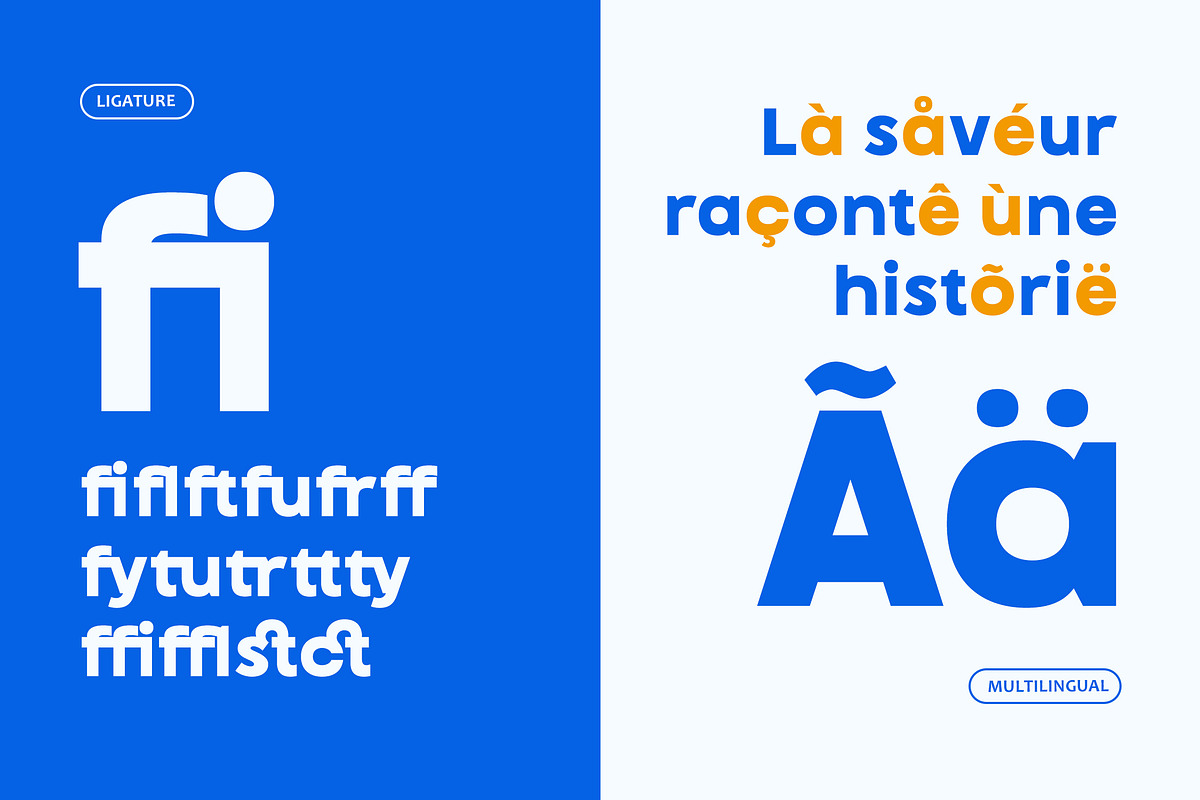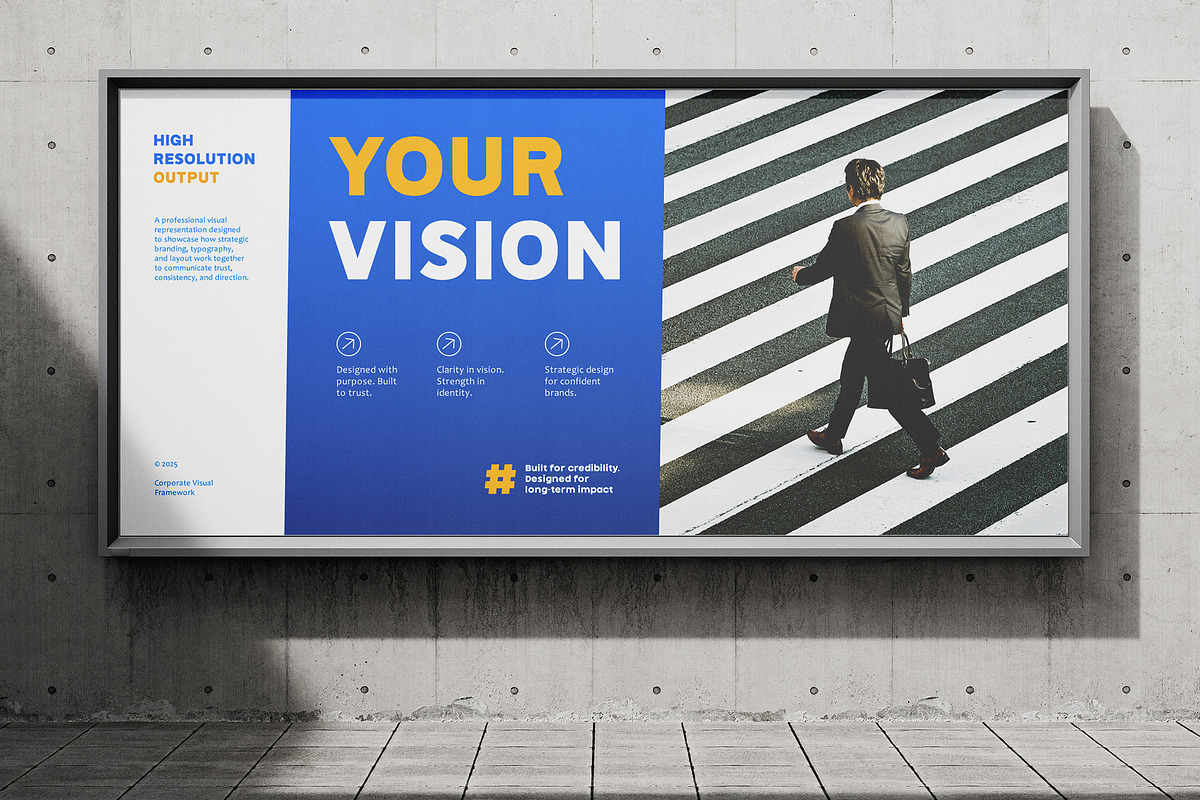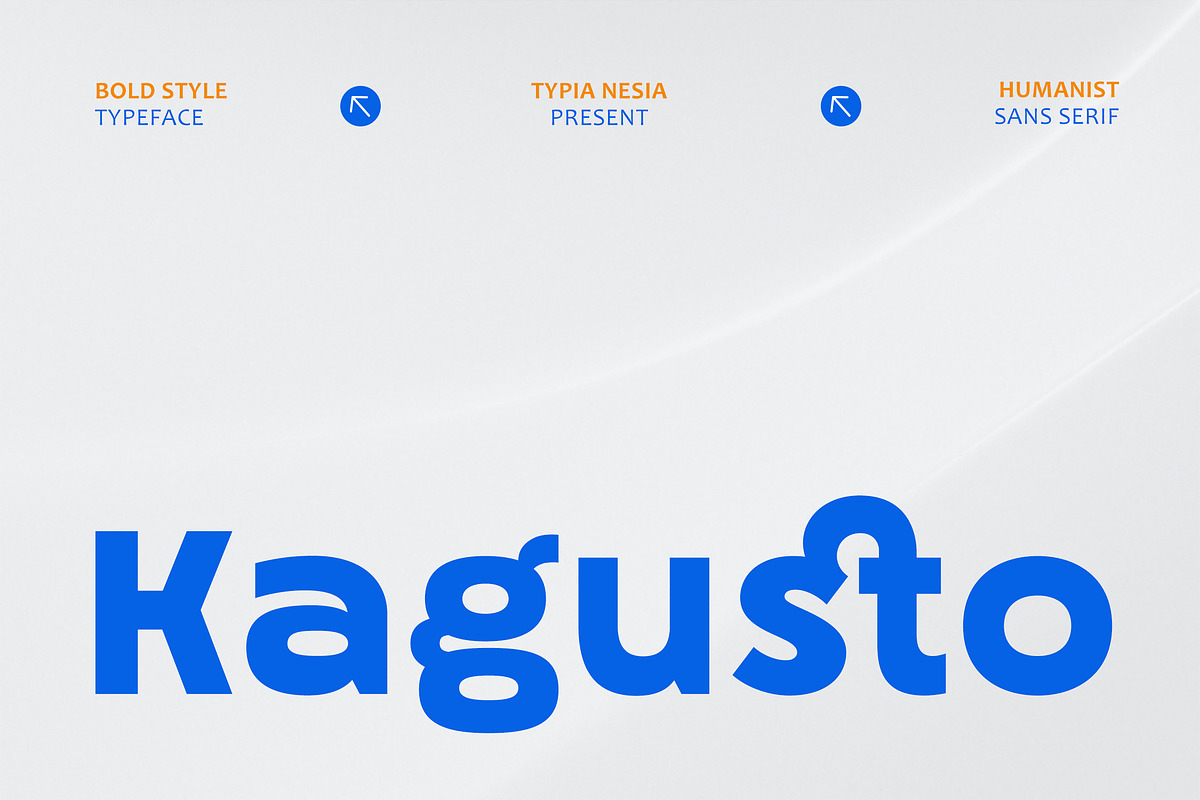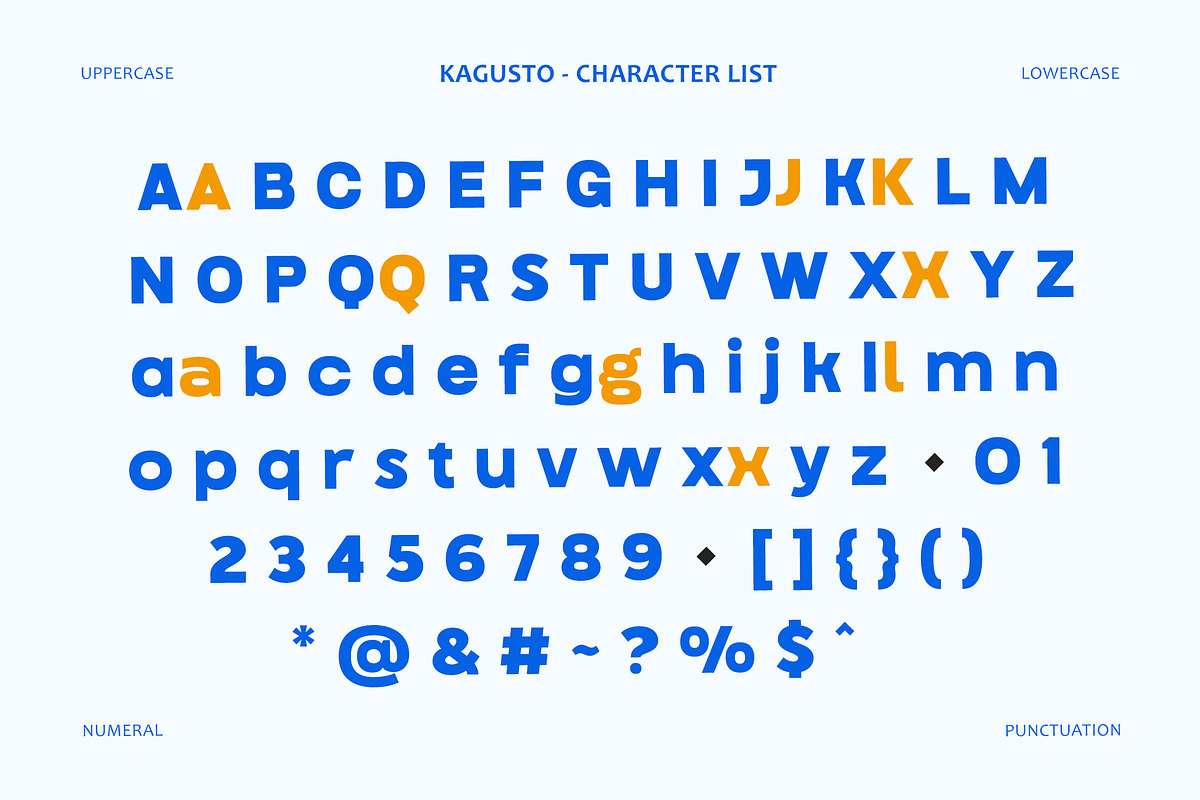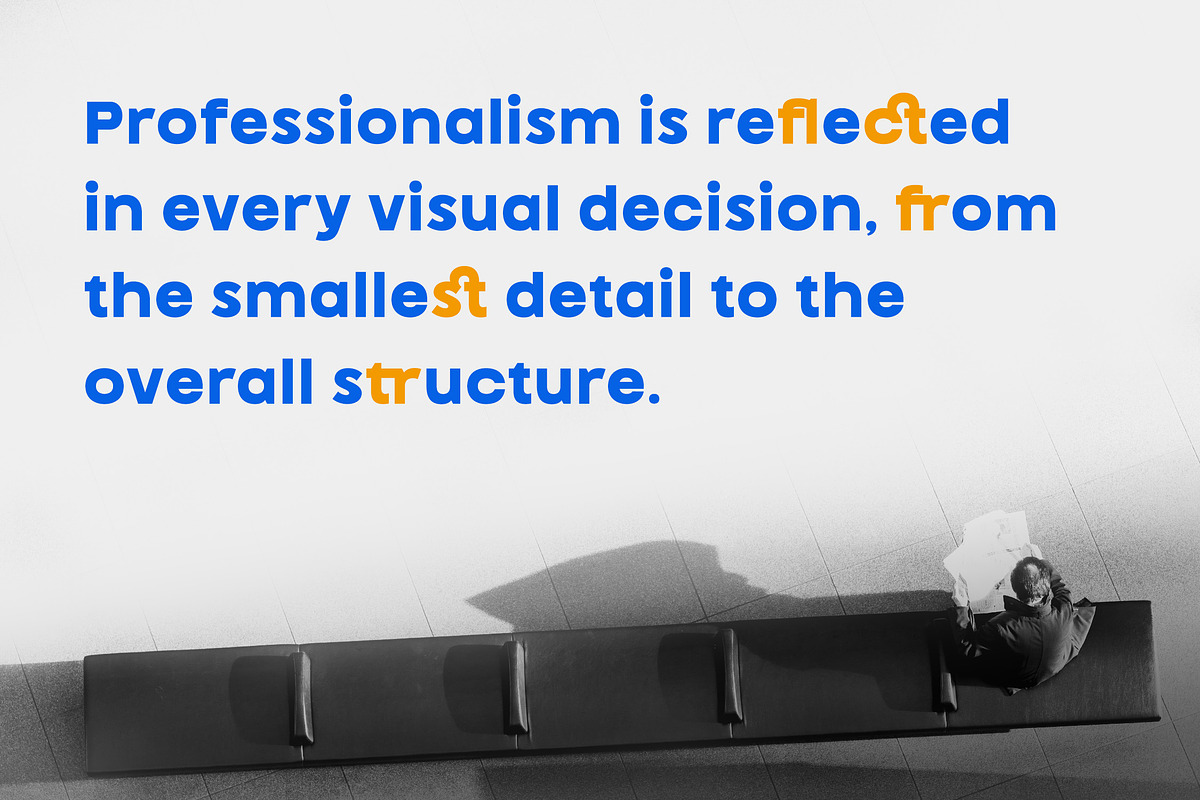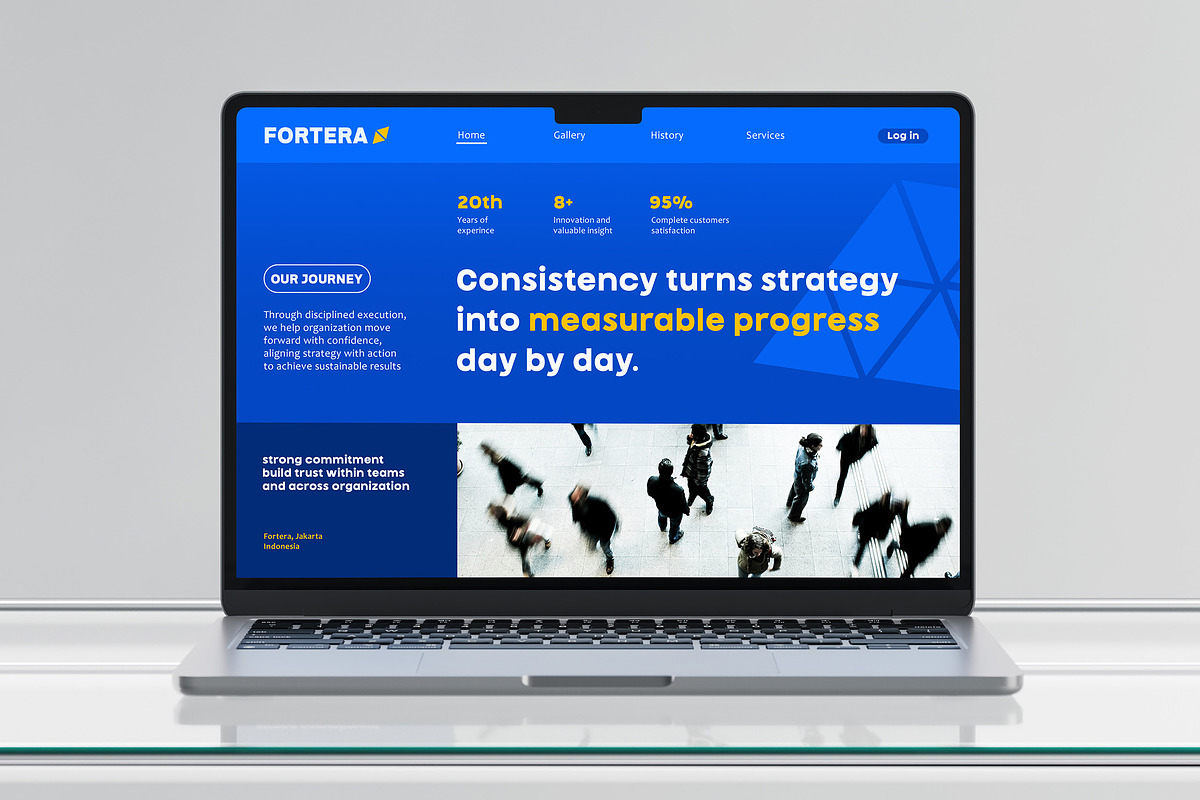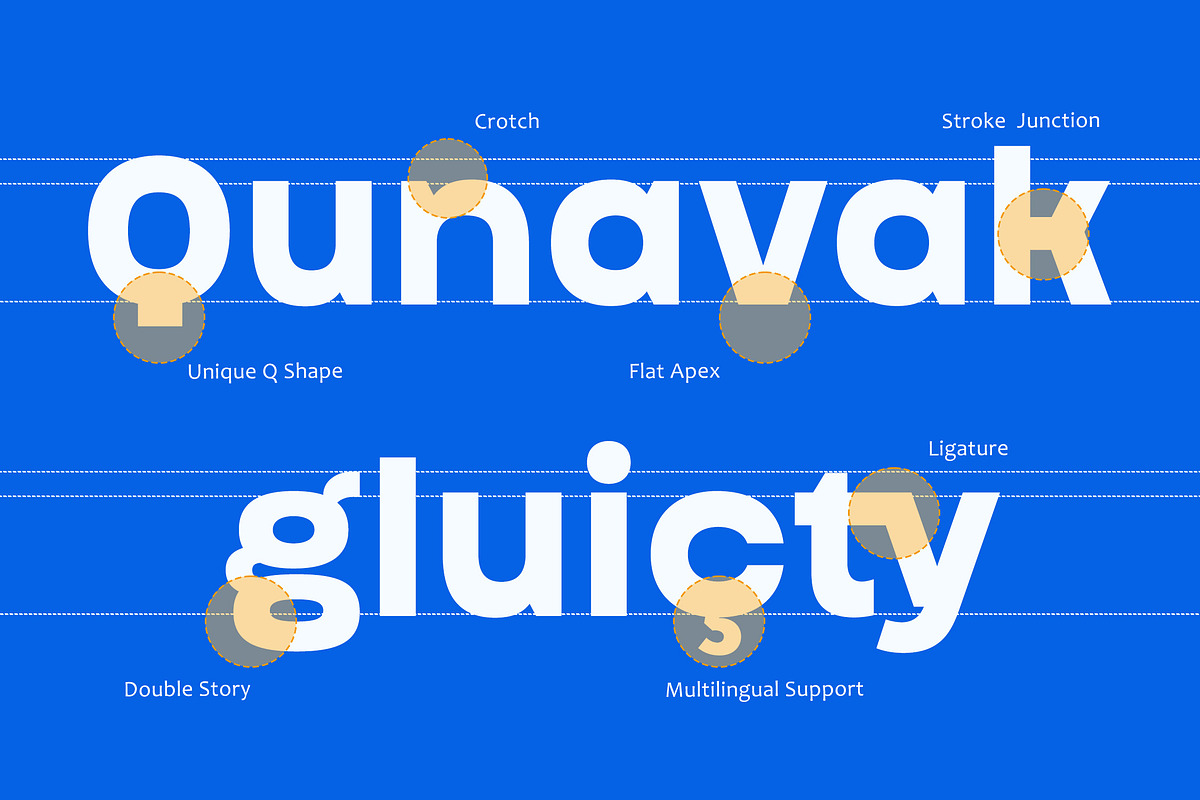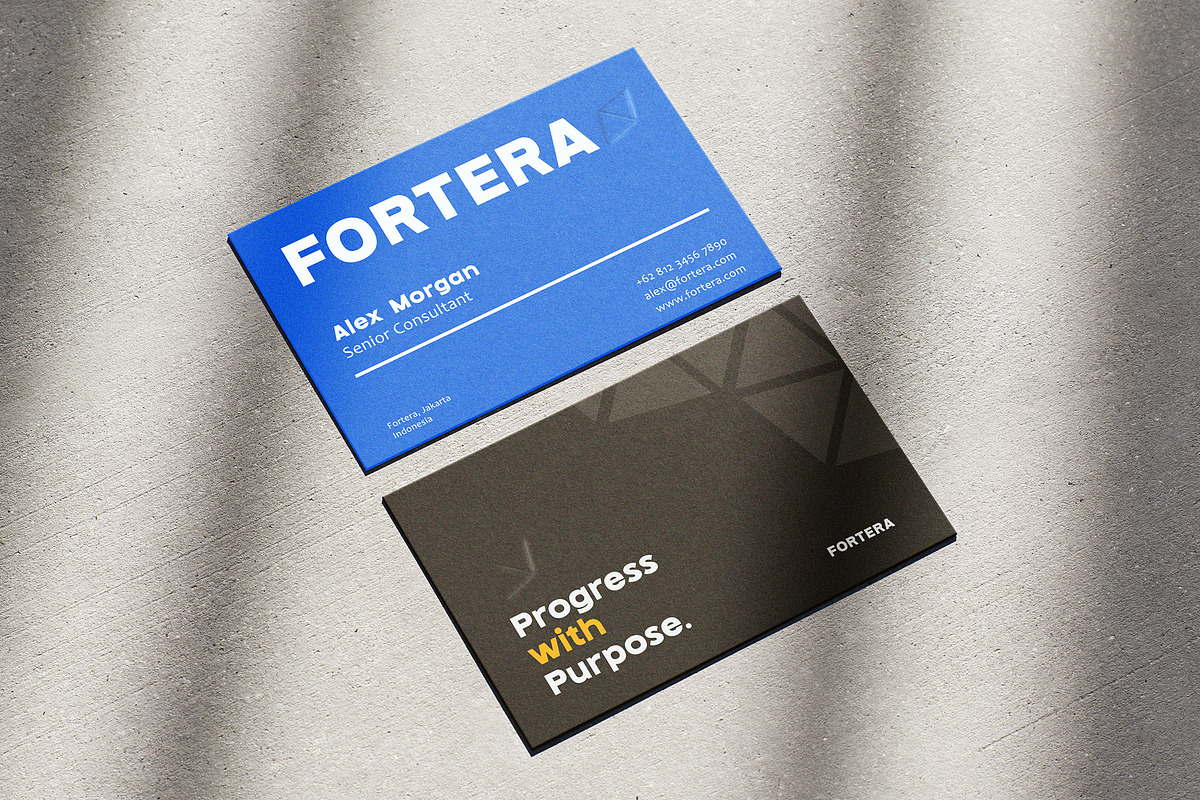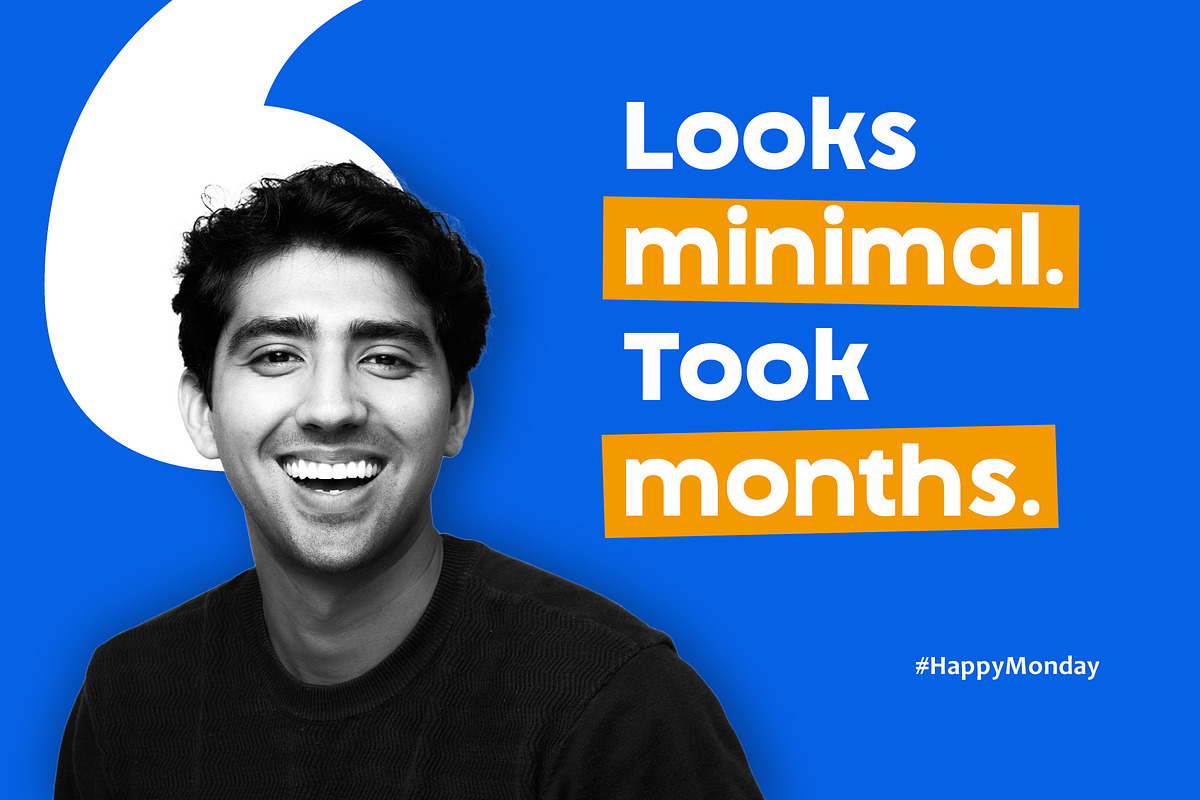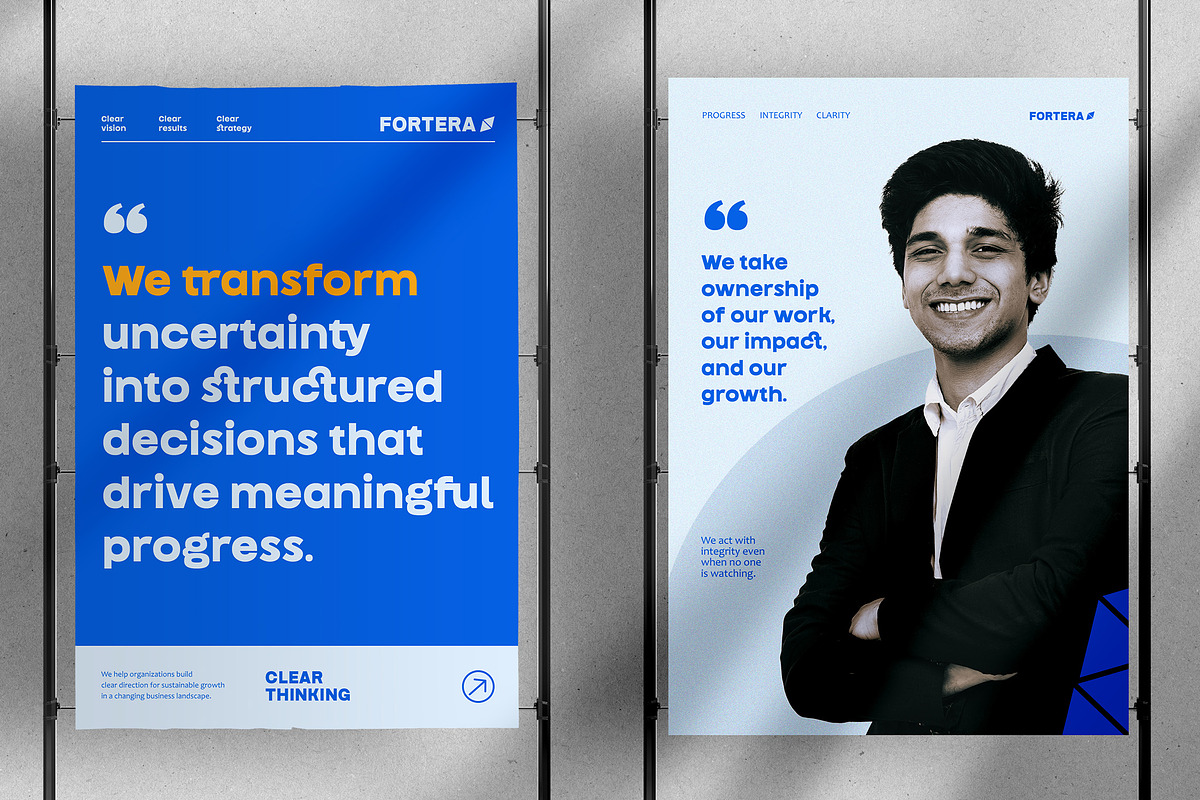
Kagusto - Modern Bold Minimal Sans
Kagusto - Modern Bold Minimal Logo Sans Font - Clean Display Font
Kagusto is a modern bold sans serif font designed for clean, strong, and professional visual communication. Featuring a minimal yet confident character, this font is perfect for logos, branding, corporate identity, advertising, headlines, packaging, and startup or business projects. Its bold structure and balanced proportions make Kagusto highly readable while maintaining a contemporary and stylish look. Ideal for sports branding, modern packaging design, and professional marketing materials, Kagusto delivers a powerful sans font aesthetic that enhances brand recognition and visual impact across digital and print media.